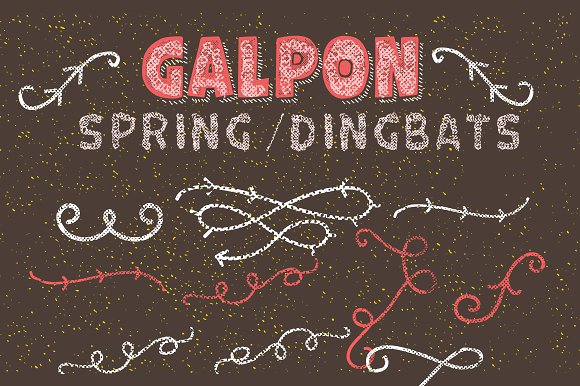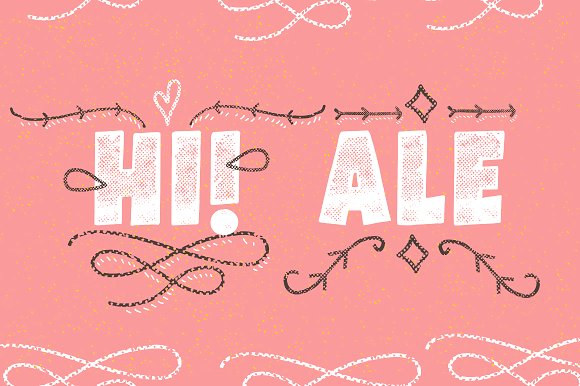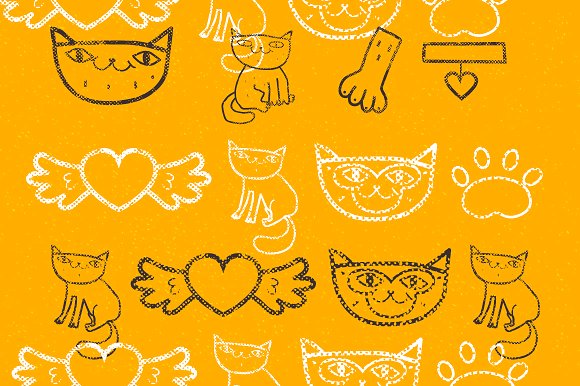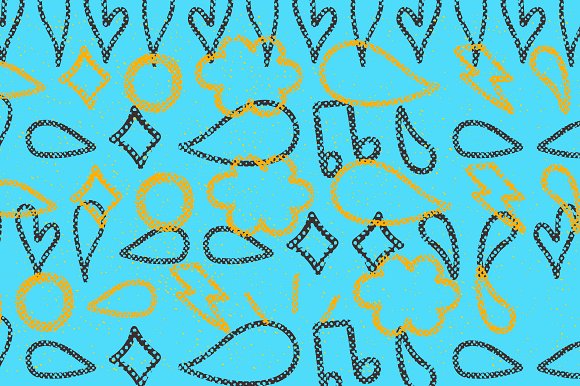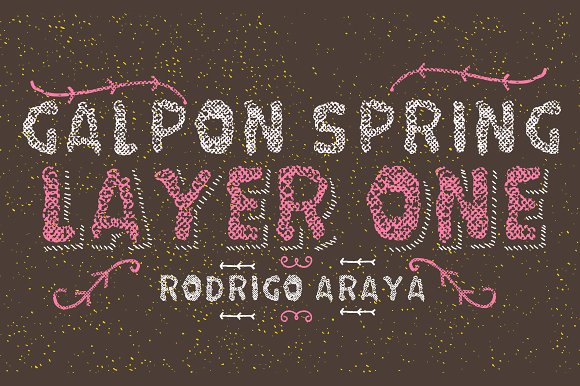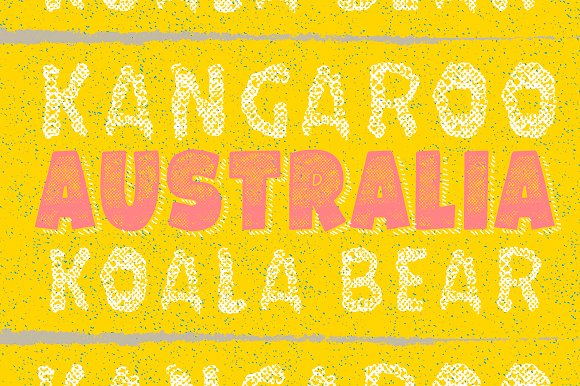
Introducing Galpon Spring Font: A Fresh Take on Creative Typography
In the world of typography, few fonts manage to capture the essence of creativity and versatility. However, Galpon Spring Font is here to change that narrative. As a fresh version of the Galpon Family, this layered font is designed to push the boundaries of typographic design, offering a unique approach to creating stunning visual effects.
The Galpon Family Legacy
The Galpon Family has long been celebrated for its innovative approach to font design. By introducing a layered system, designers can stack individual fonts on top of each other, creating intricate and complex designs that were previously unimaginable. Galpon Spring Font takes this concept to the next level, infusing it with a renewed sense of freshness and creativity.
What is Galpon Spring Font?
Galpon Spring Font is a modern iteration of the Galpon Family, specifically crafted to offer designers an unparalleled level of creative freedom. This font is not just a single typeface but a comprehensive system of layers that can be combined in various ways. By stacking different layers, designers can produce unique and captivating designs that stand out in any project.
Key Features of Galpon Spring Font
- Layered Design: The core feature of Galpon Spring Font is its layered design. This allows designers to stack multiple layers on top of each other, creating complex and visually appealing typographic designs.
- Versatility: With Galpon Spring Font, the possibilities are endless. Designers can experiment with different layer combinations, colors, and textures to achieve a wide range of effects, from subtle and elegant to bold and striking.
- Ease of Use: Despite its advanced capabilities, Galpon Spring Font is remarkably easy to use. Designers can quickly learn to navigate the layered system and start creating unique designs without a steep learning curve.
- Customization: Galpon Spring Font offers a high degree of customization. Designers can adjust the layers to fit their specific needs, ensuring that their typographic designs are perfectly aligned with their overall design vision.
Applications of Galpon Spring Font
Galpon Spring Font is incredibly versatile and can be applied across a wide range of design projects. Here are a few examples:
- Branding and Logo Design: Create memorable and impactful logos with Galpon Spring Font’s unique layered design.
- Advertising and Marketing Materials: Stand out in advertising campaigns with eye-catching typography that captures the audience’s attention.
- Packaging Design: Elevate product packaging with distinctive and creative typographic designs.
- Digital Media: Enhance digital content, such as social media posts, website headers, and digital ads, with dynamic and engaging typography.
Tips for Using Galpon Spring Font
To get the most out of Galpon Spring Font, consider the following tips:
- Experiment with Layer Combinations: Don’t be afraid to try different layer combinations to discover unique design possibilities.
- Play with Colors and Textures: Utilize a variety of colors and textures to add depth and interest to your typographic designs.
- Keep it Simple: Sometimes, less is more. Experiment with minimalist designs using Galpon Spring Font for a clean and elegant look.
Galpon Spring Font represents a significant evolution in typographic design, offering designers a powerful tool for creating visually stunning and unique designs. With its layered approach, versatility, and ease of use, Galpon Spring Font is poised to become a go-to choice for designers and crafters looking to push the boundaries of creativity. Whether you’re working on branding, advertising, packaging, or digital media, Galpon Spring Font provides the perfect platform to express your creativity and make a lasting impression.